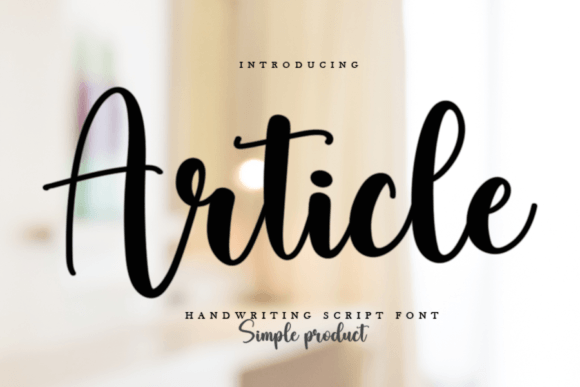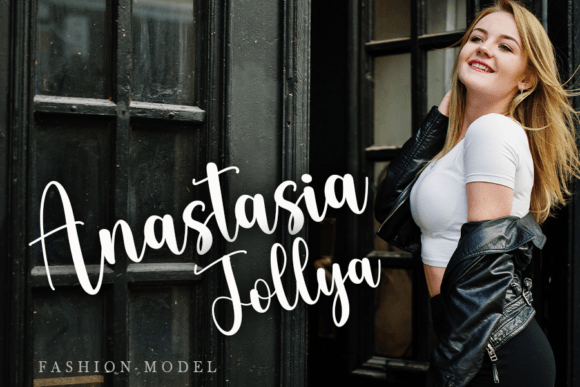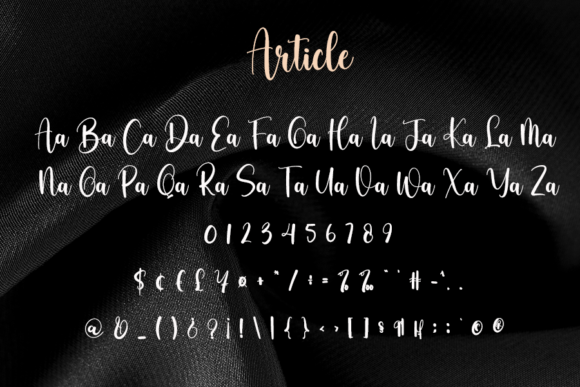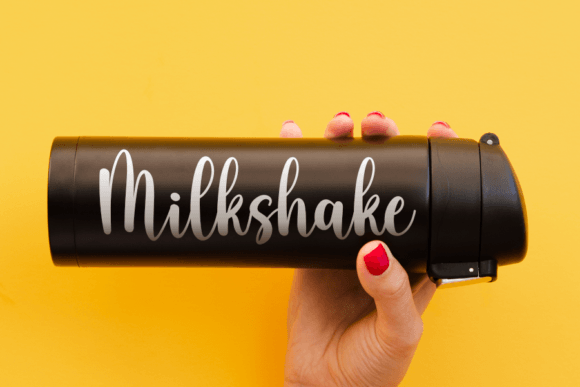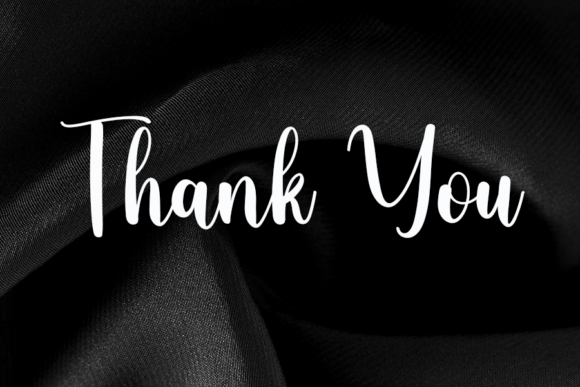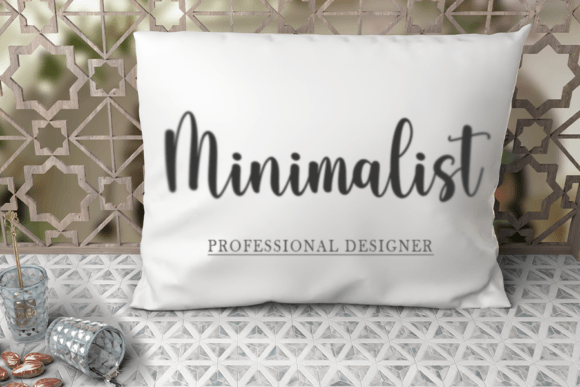
Article Font
About Article Font
Article is a stylish handwritten font that merges the elegance of classic calligraphy with a clean, modern feel. Its carefully designed curves and balanced strokes make it a perfect choice for projects that require sophistication without sacrificing readability. Whether you’re designing wedding invitations, branding, or social media graphics, Article adds a timeless touch.
A Modern Handwritten Style
Inspired by traditional calligraphy, Article offers smooth, flowing lines and consistent weight. Each character feels warm and personal while maintaining a professional polish. This balance makes Article ideal for both formal and casual projects.
The font includes uppercase and lowercase letters with graceful connections. These details create a refined aesthetic that stands out without overpowering your design. The natural movement in each letter gives your text a handwritten feel, adding authenticity and charm.
Versatile for Every Project
Article is a font you can use across many applications. Its versatility ensures it fits beautifully into any setting:
• Logos and Branding: Elevate your brand with a sophisticated signature look.
• Wedding Invitations: Create romantic, memorable stationery.
• Greeting Cards: Bring warmth and elegance to personal messages.
• Product Labels: Make packaging feel high-end and unique.
• Social Media Posts: Capture attention with beautiful quotes and headlines.
• Posters and Banners: Showcase your message in style.
Article’s clean letterforms remain clear even at small sizes, making it practical for both print and digital projects.
Easy Access to Beautiful Glyphs
Why Designers Love Article
• Modern Calligraphy Influence: Blends classic beauty with fresh simplicity.
• Highly Legible: Perfect balance between style and readability.
• Smooth Flow: Letters connect naturally for a cohesive look.
• Professional Yet Friendly: Adds polish without feeling stiff.
1. Pair with Sans-Serif Fonts: Creates contrast and highlights Article’s elegance.
2. Use Soft Color Palettes: Neutral or pastel colors enhance its sophisticated feel.
3. Add Space: Generous spacing helps showcase the flowing lines.
4. Highlight Headlines: Large sizes reveal the beautiful details.
5. Keep It Simple: Let the font’s personality shine without too many effects.
Elevate Your Work
Article is more than a typeface—it’s a way to make your designs feel personal, refined, and timeless. From delicate stationery to bold branding, Article adapts effortlessly. Let it help you tell your story with style.